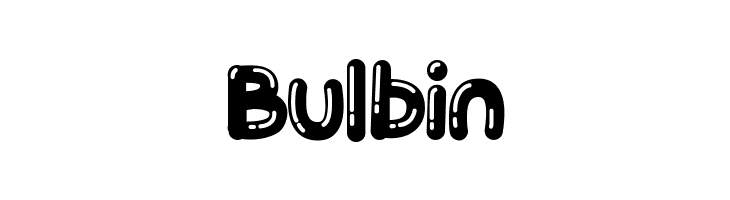
A bold, decorative font with calligraphic and blackletter influences.
A bold, blackletter-inspired font with ornate details and high contrast.
A bold, three-dimensional font with shadow effects for a striking, decorative look.
A bold, expressive brush script font with dynamic, fluid strokes.
An elegant, flowing script font with a sophisticated, handwritten style.
Modern, geometric Gurmukhi script with monolinear strokes.
A bold, modern font with high contrast and decorative elements.
A bold, modern font with clean lines and balanced proportions.
A bold, heavy font with strong, thick strokes and a modern-traditional style.
A modern, hollow, decorative font with outlined characters.
A bold, hollow, and decorative font with outlined characters.
A decorative font with thin borders and geometric structure, offering a modern yet classic style.
A modern, thin-lined font with a minimalist and elegant design.
A modern outline font with thin borders and geometric precision.
A bold, geometric font with block-like shapes and modern appeal.
A bold, playful font with rounded, bulbous shapes and a whimsical style.
A playful, bold font with rounded, bulbous characters.
Playful, outlined decorative font with bubble-like characters.
Bold, playful font with rounded characters.
A lively, flowing script font with elegant, connected letters and a natural handwriting style.
A bold, gothic-inspired font with sharp, angular lines and intricate details.
A sleek, modern font with clean lines and a minimalist aesthetic.
A modern, decorative font with bold geometric uppercase and elegant script lowercase.
A playful and dynamic script font with a handwritten feel.
A decorative cursive font with elegant loops and a handwritten style.
A bold, hand-drawn font with a dynamic and artistic style.